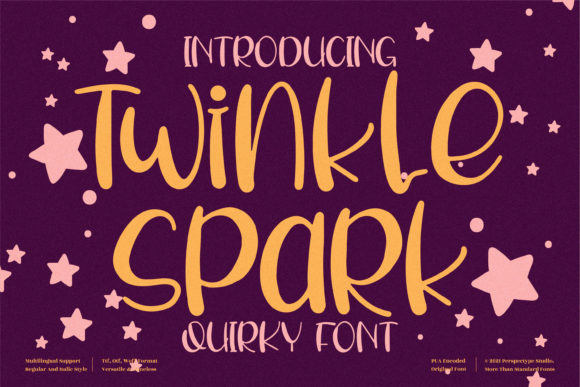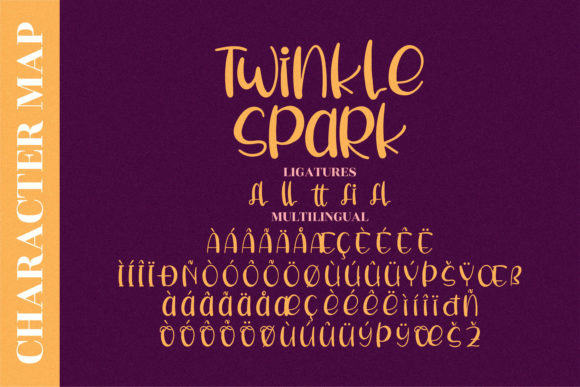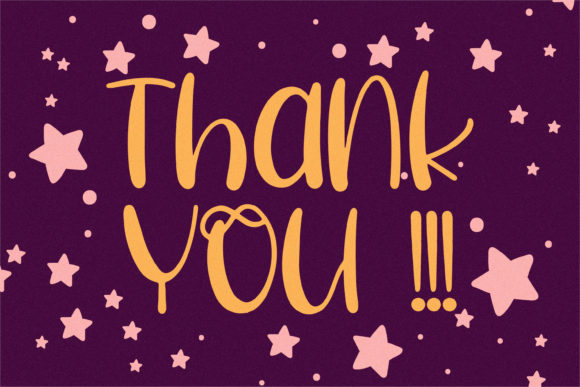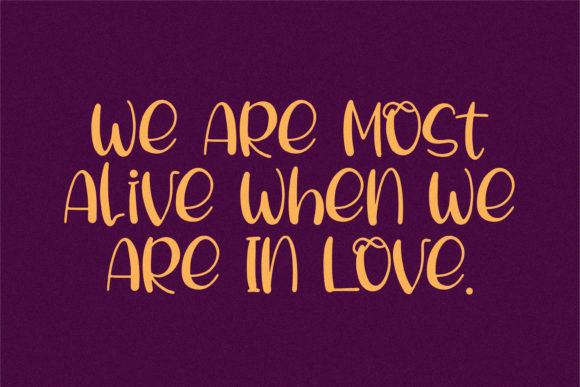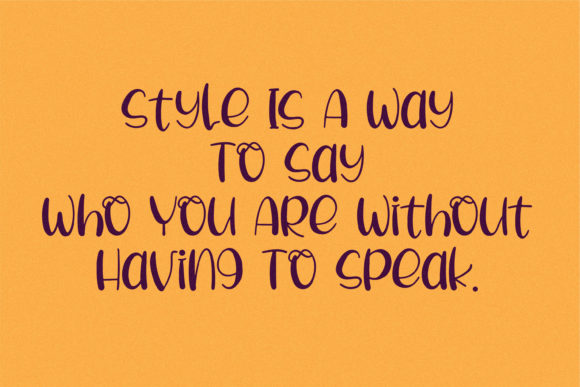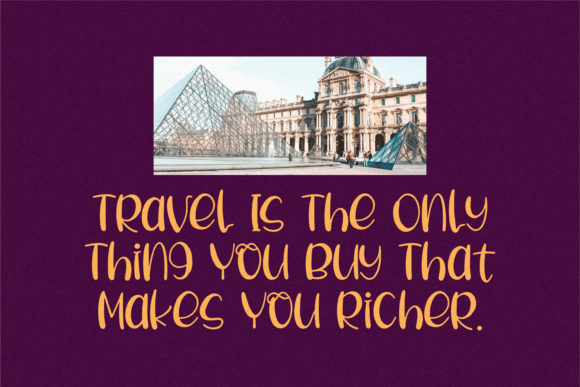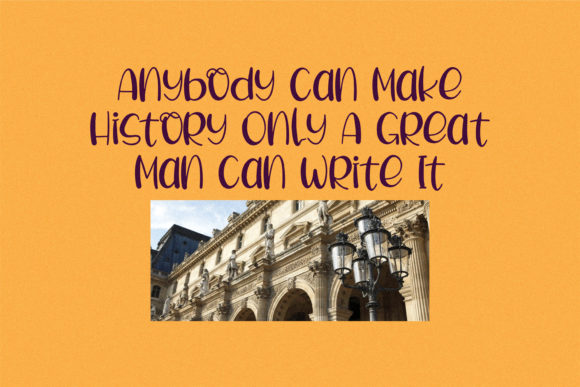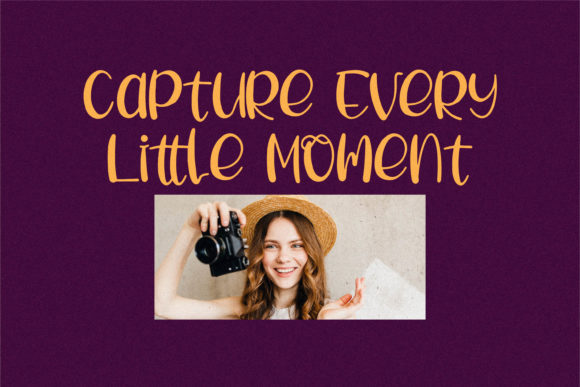
Twinkle Spark Font
About Twinkle Spark Font
Twinkle Spark is a whimsical script font with a relaxed theme, featuring a lovely style. No matter the topic, this font will be an incredible asset to your fonts’ library, as it has the potential to elevate any creation.